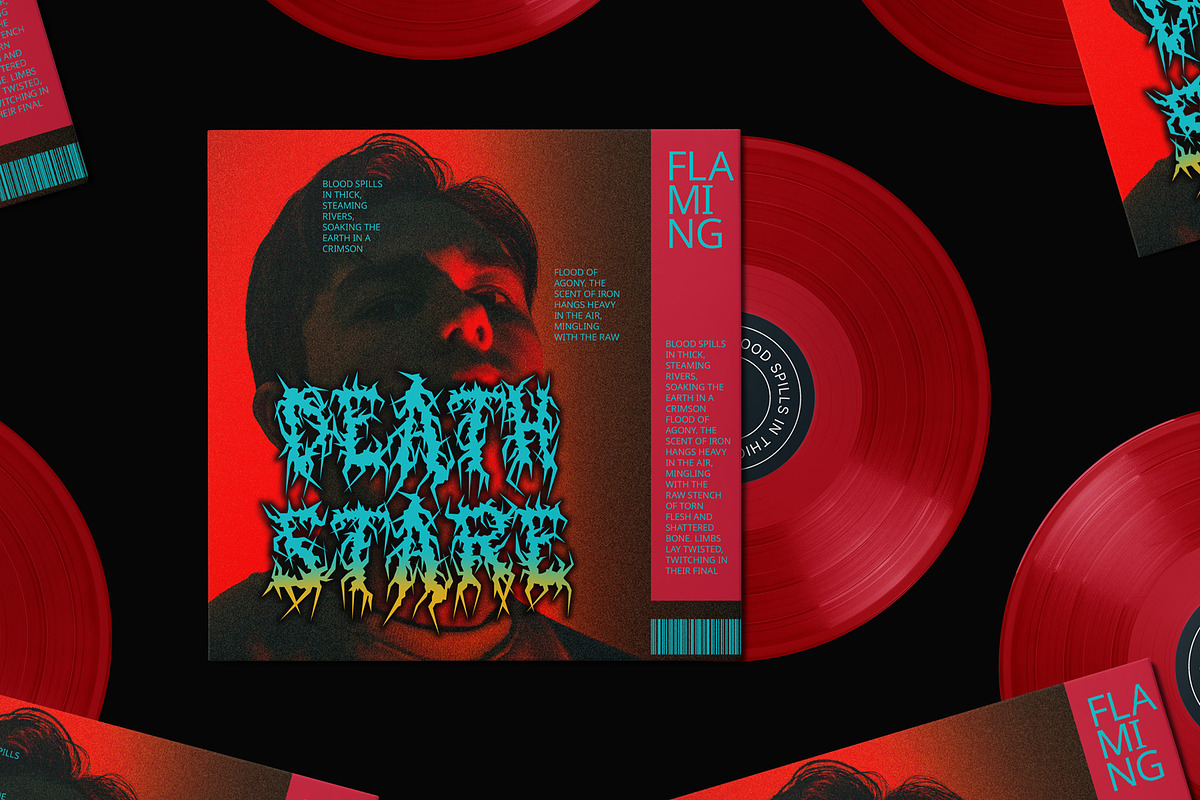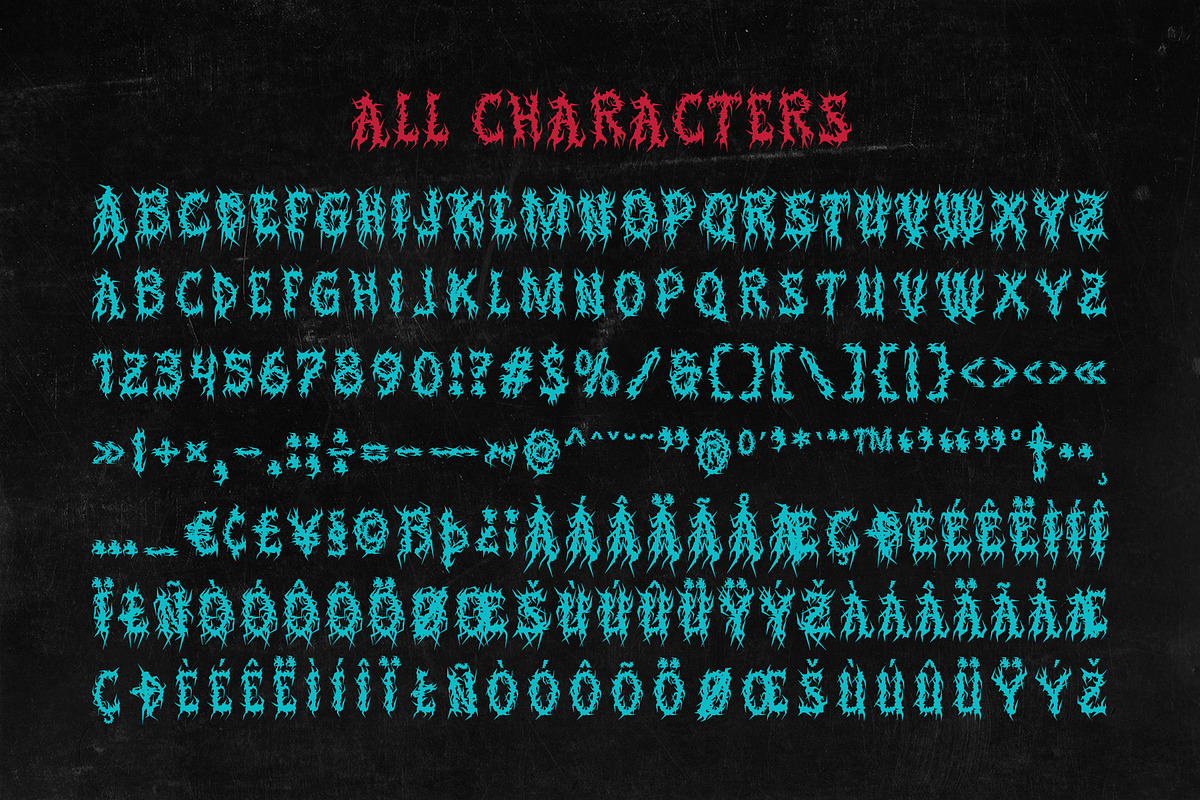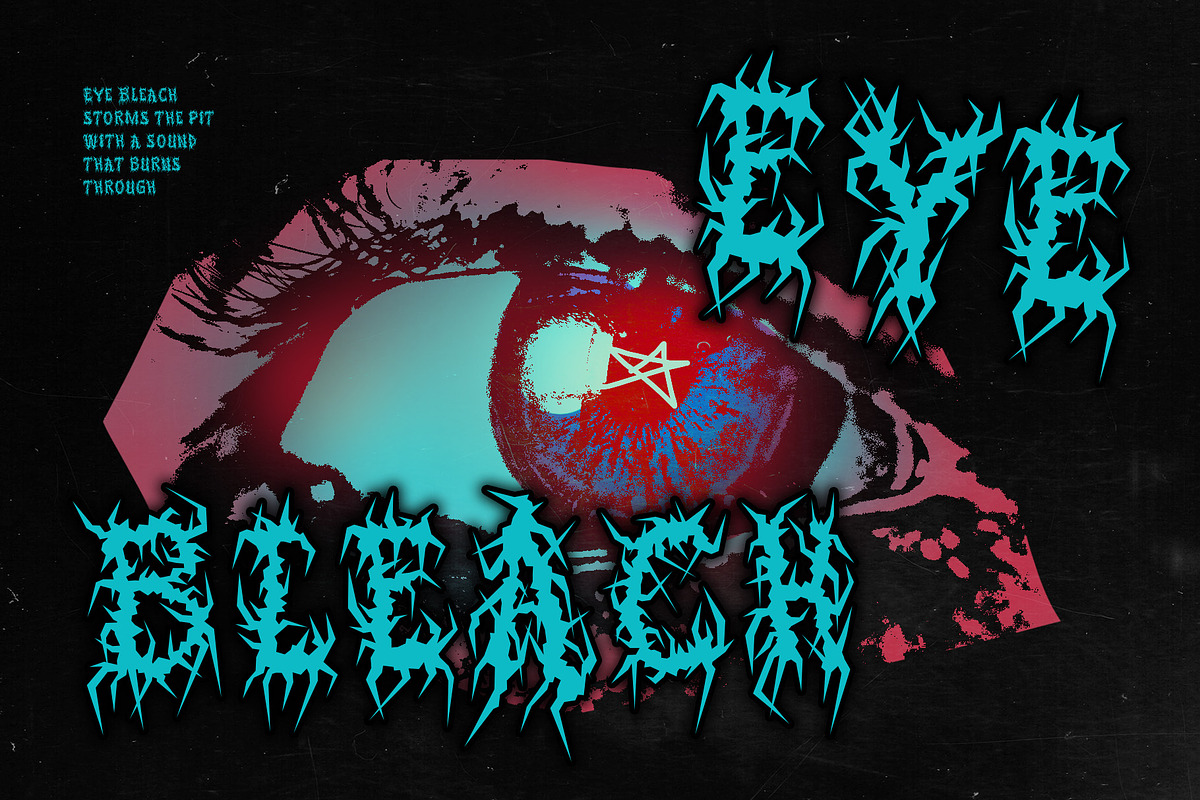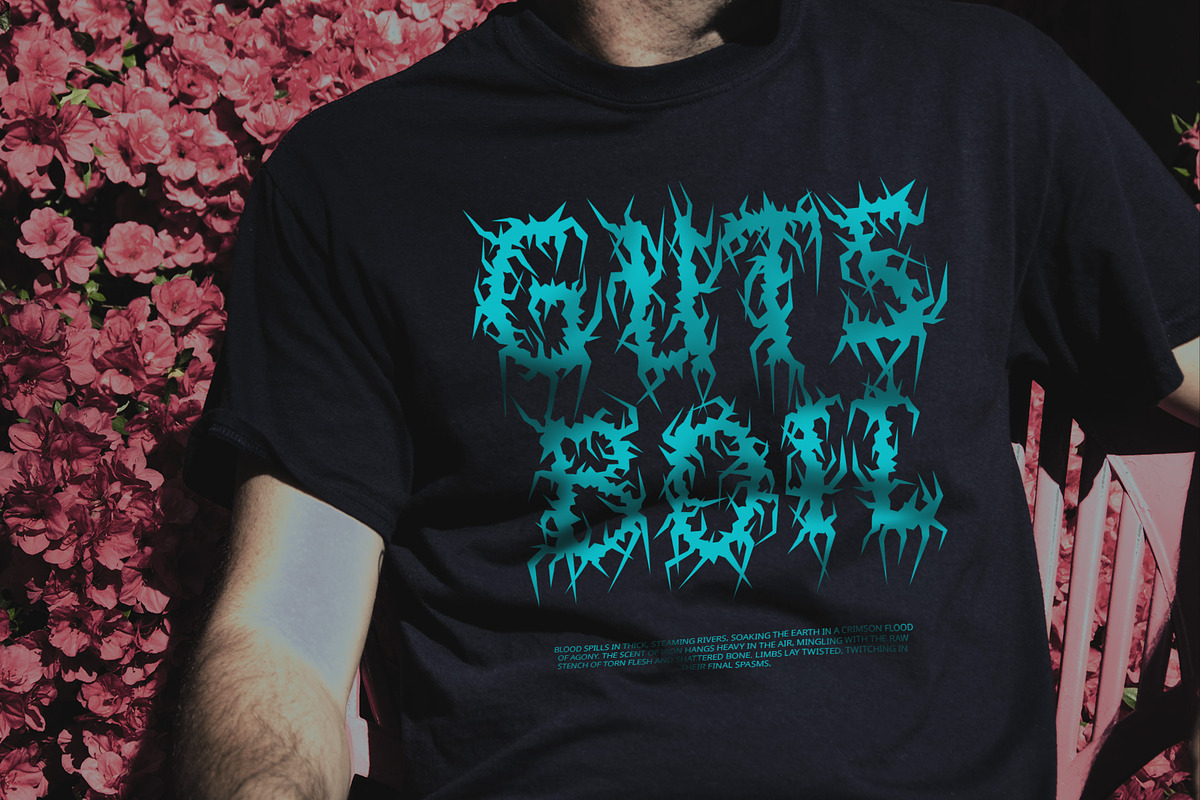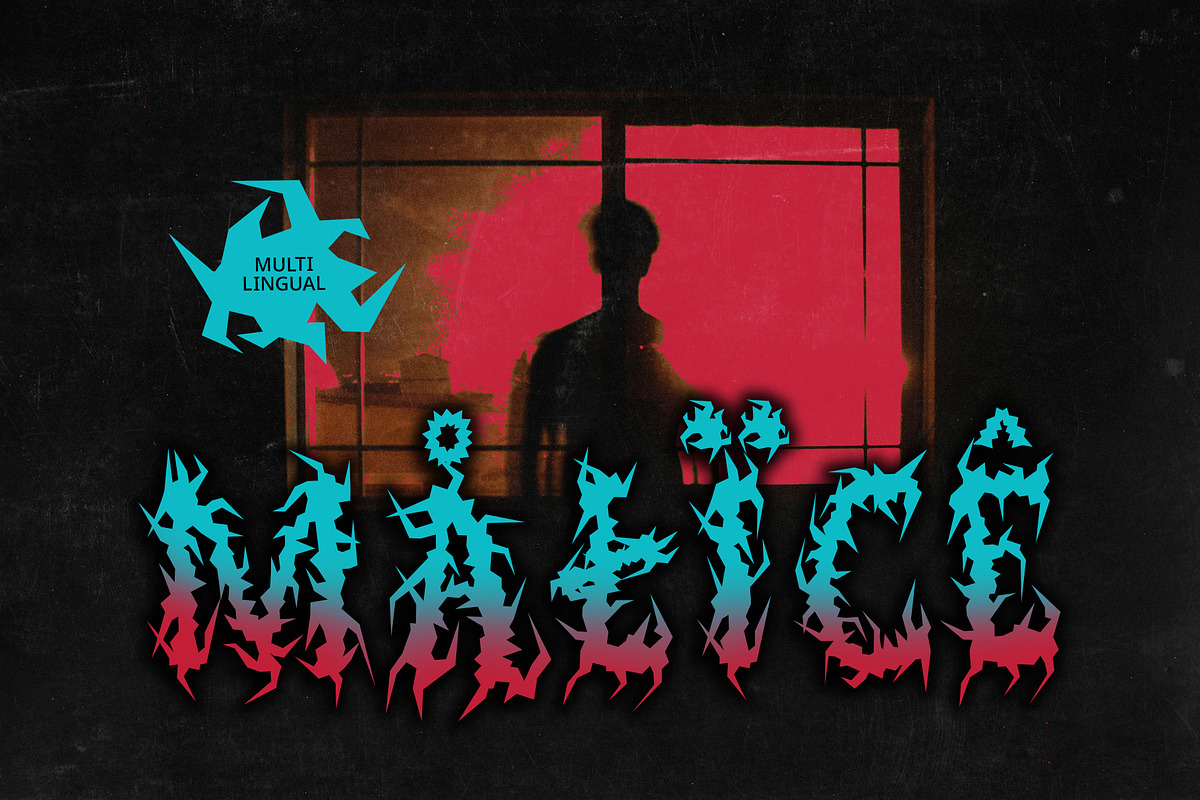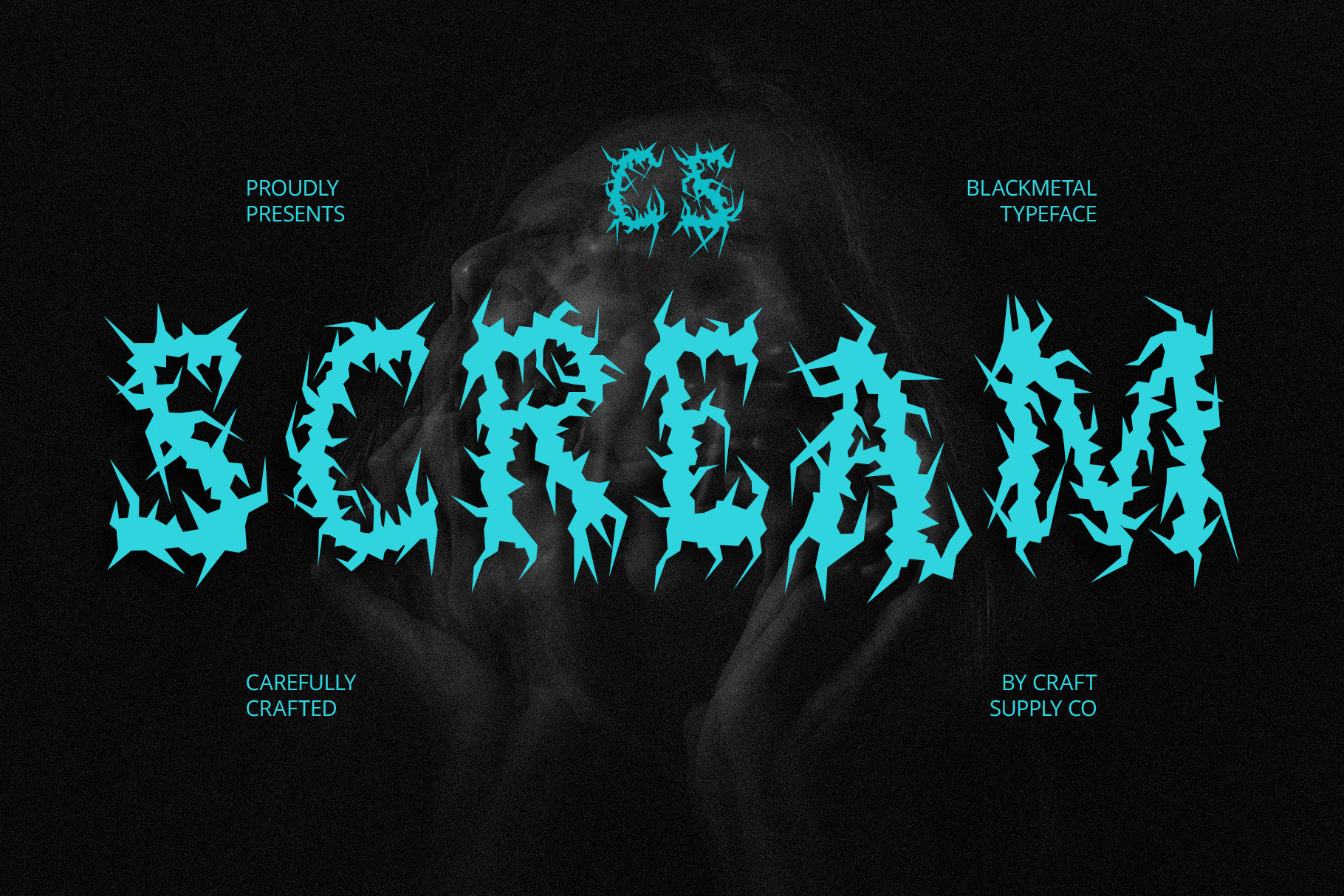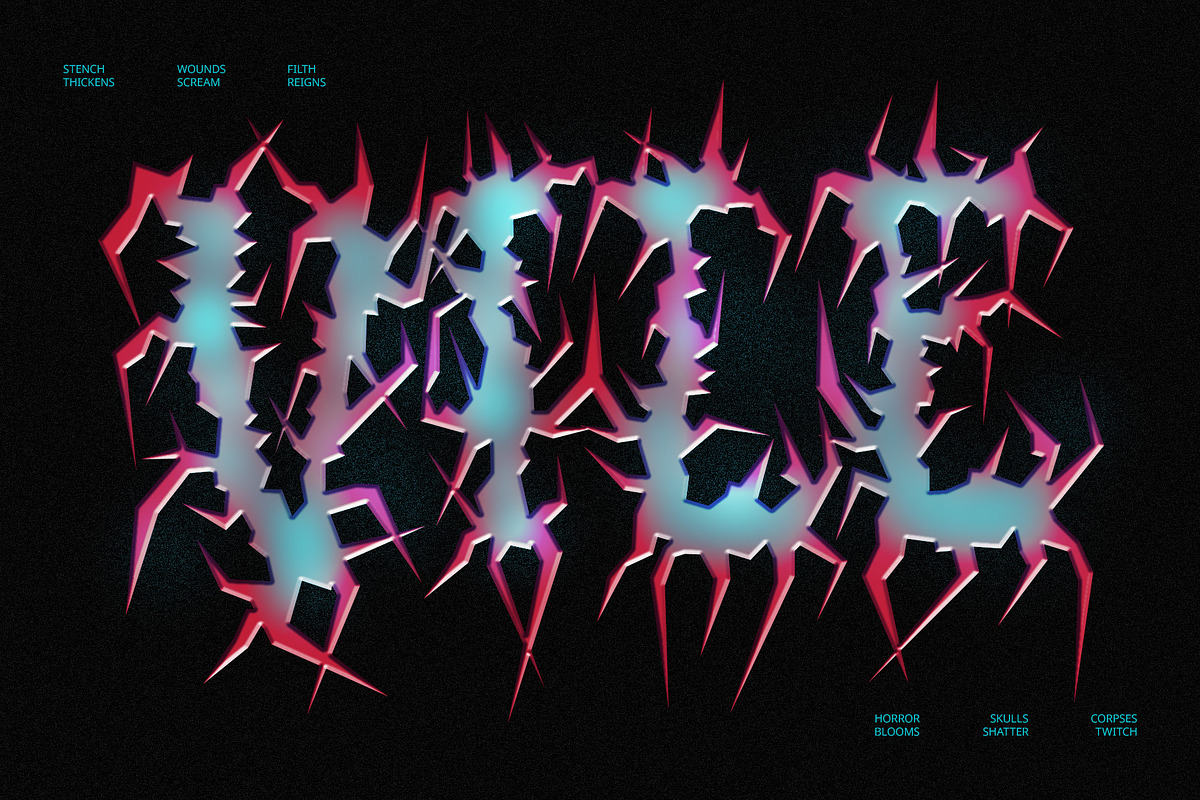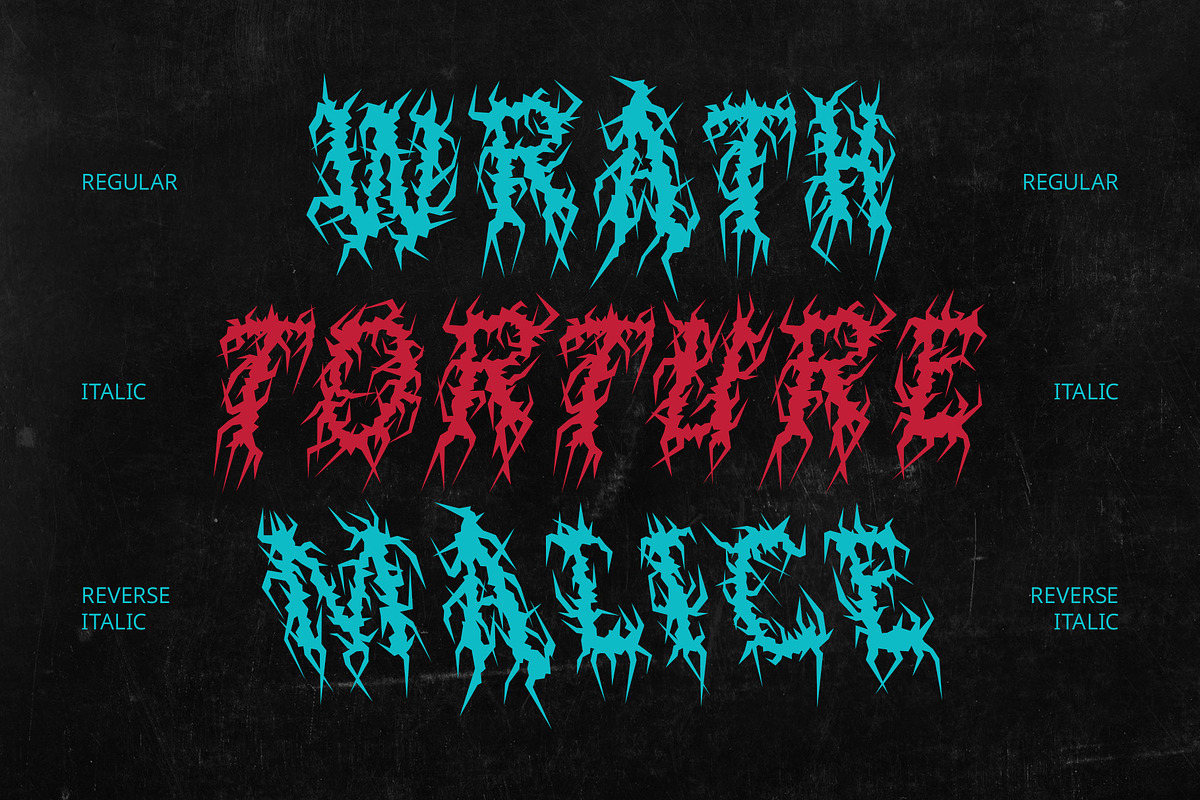
CS Scream – Black Metal Font
CS Scream – Black Metal Font: Embrace the Chaos of Darkness
Sharp, Spiky, and Brutally Expressive CS Scream is a black metal display font defined by its extreme, jagged letterforms. Inspired by the visual intensity of underground metal scenes, each character features chaotic, spiky strokes that border on illegibility—intentionally crafted to evoke raw aggression and visual noise.
Dark Aesthetic with Rebellious Energy This font doesn’t just convey words—it screams them. CS Scream embodies the essence of rebellion, mystery, and menace, drawing directly from the anti-mainstream spirit of black metal culture. Its visual complexity delivers a powerful statement that’s meant to disturb, provoke, and challenge.
Perfect for Subcultural and Underground Design Ideal for black metal band logos, horror-themed visuals, or any artwork rooted in the extreme and the obscure, CS Scream excels in settings where conventional design falls short. It suits projects seeking to disrupt norms and embrace an aesthetic of disorder and defiance.
Raw Identity for Experimental Creatives CS Scream is more than a font—it’s a visual manifesto. For designers unafraid to push boundaries and explore darker narratives, this typeface provides a haunting, visceral presence that turns any design into an icon of the extreme.